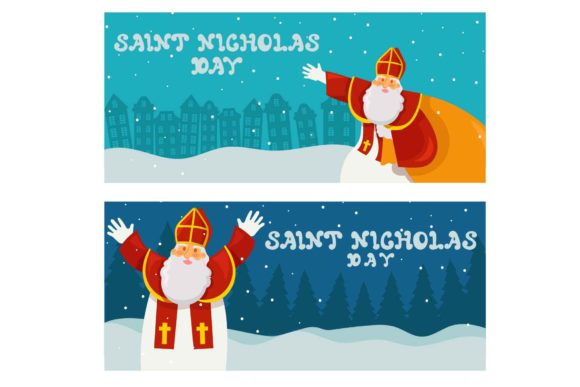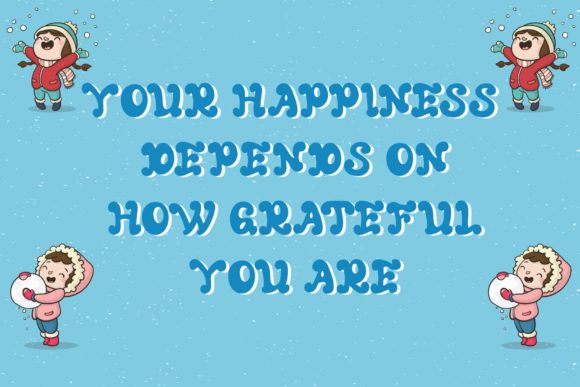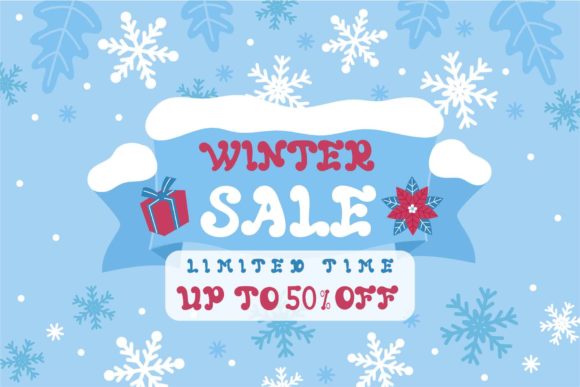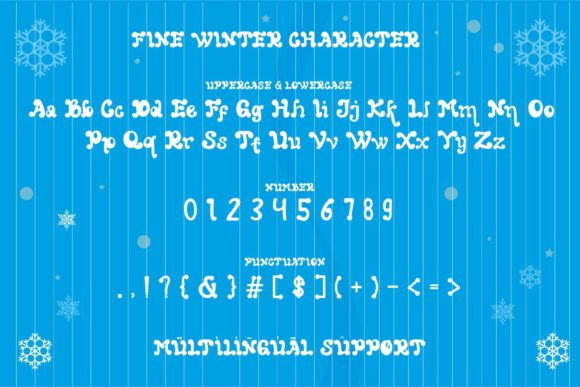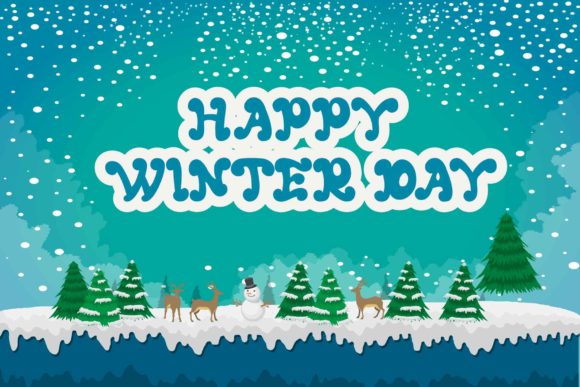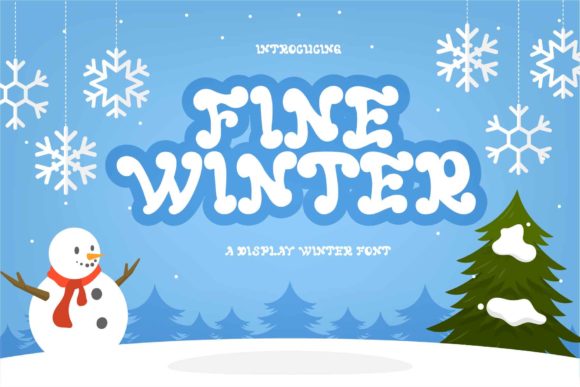
Introducing Fine Winter Font: The Ultimate Display Font for Creative Projects
Are you tired of using the same old fonts for your creative projects? Look no further! Fine Winter Font is here to revolutionize your designs with its bold and fun display font. Masterfully designed to become a true favorite, this font has the potential to bring each of your creative ideas to the highest level. In this article, we’ll dive into the features and benefits of Fine Winter Font, and explore how it can elevate your designs.
What is Fine Winter Font?
Fine Winter Font is a bold and fun display font that’s perfect for creative projects. Its unique design makes it stand out from the crowd, and its versatility allows it to be used in a variety of contexts. Whether you’re designing a logo, creating a poster, or crafting a social media graphic, Fine Winter Font is the perfect choice.
Key Features of Fine Winter Font
- Bold and Fun Design: Fine Winter Font boasts a bold and fun design that’s sure to grab attention. Its unique shape and structure make it perfect for creating eye-catching headlines and titles.
- Highly Versatile: This font is highly versatile and can be used in a variety of contexts, from logos and posters to social media graphics and more.
- Easy to Read: Despite its bold design, Fine Winter Font is easy to read, making it perfect for use in a variety of applications.
- Masterfully Designed: Fine Winter Font has been masterfully designed to become a true favorite among designers and crafters.
Benefits of Using Fine Winter Font
So, why should you choose Fine Winter Font for your creative projects? Here are just a few benefits of using this amazing font:
- Adds a Touch of Personality: Fine Winter Font adds a touch of personality to your designs, making them stand out from the crowd.
- Increases Engagement: The bold and fun design of Fine Winter Font is sure to grab attention and increase engagement with your audience.
- Perfect for Creative Projects: Fine Winter Font is perfect for creative projects, including logos, posters, social media graphics, and more.
- Easy to Use: This font is easy to use and can be easily integrated into your designs.
Who is Fine Winter Font for?
Fine Winter Font is perfect for designers and crafters who are looking to add a touch of personality to their creative projects. Whether you’re a professional designer or a DIY crafter, this font is sure to become a favorite in your toolkit.
- Graphic Designers: Fine Winter Font is perfect for graphic designers who are looking to create eye-catching logos, posters, and social media graphics.
- Crafters: This font is also perfect for crafters who are looking to add a touch of personality to their handmade projects.
- Small Business Owners: Fine Winter Font is a great choice for small business owners who are looking to create a unique brand identity.
How to Use Fine Winter Font
Using Fine Winter Font is easy! Here are a few tips for incorporating this amazing font into your designs:
- Use it as a Headline Font: Fine Winter Font is perfect for use as a headline font, adding a touch of personality to your titles and headings.
- Pair it with Other Fonts: This font pairs well with other fonts, making it easy to create a unique and eye-catching design.
- Experiment with Different Colors: Fine Winter Font looks great in a variety of colors, so don’t be afraid to experiment and find the perfect color for your design.
| Font Name | Fine Winter Font |
In conclusion, Fine Winter Font is a bold and fun display font that’s perfect for creative projects. Its unique design, versatility, and ease of use make it a great choice for designers and crafters alike. Whether you’re looking to add a touch of personality to your designs or create a unique brand identity, Fine Winter Font is the perfect choice. So why wait? Download Fine Winter Font today and take your designs to the next level!